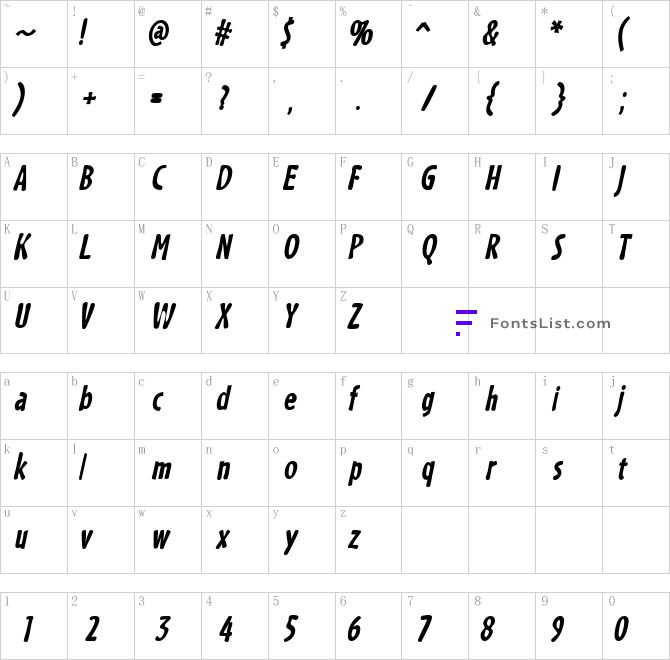
- Font Name:Cafecoco
- Subfamily:BlackItalic
- Full Name:Cafecoco BlackItalic
- Weight:900
- Copyright:©1998 Sander Kessels Based on Cafetaria ©1993, Tobias Frere‐Jones. Designed by Tobias Frere‐Jones. Produced by The Font Bureau, Inc.
Cafecoco-BlackItalic.ttf is a very beautiful artistic font, Cafecoco-BlackItalic.ttf is widely used in the design and printing of various books and pictures,Cafecoco-BlackItalic.ttf has a strong visual impact,Cafecoco-BlackItalic.ttf is a commonly used font in newspapers, magazines and books, and is used in posters, e-commerce Poster design, store design, logo design, font design and other fields.Cafecoco-BlackItalic.